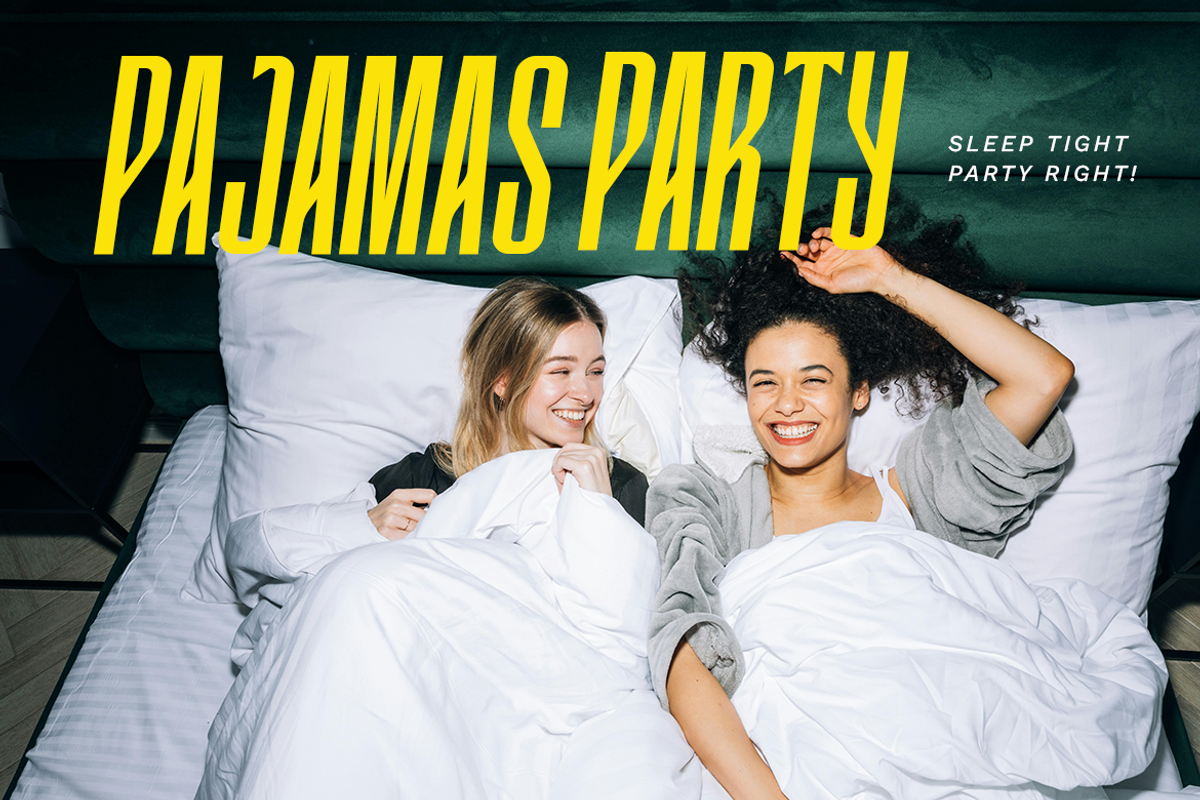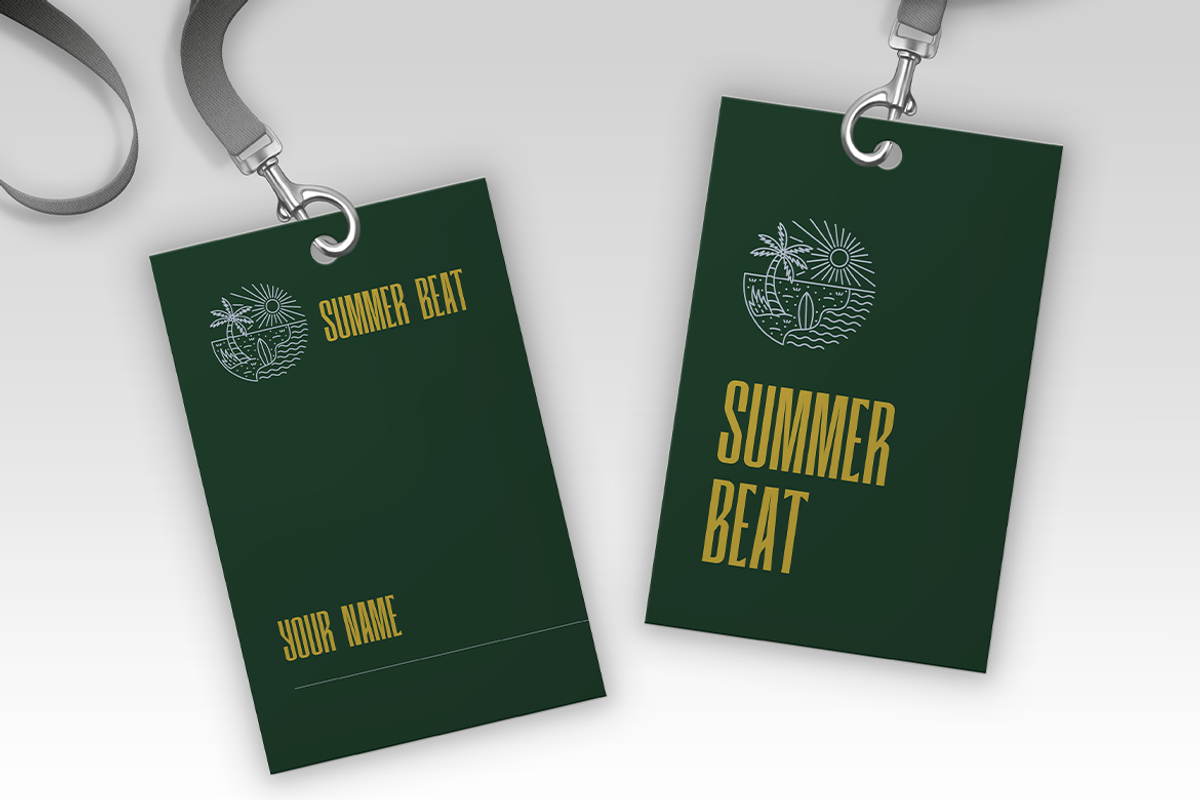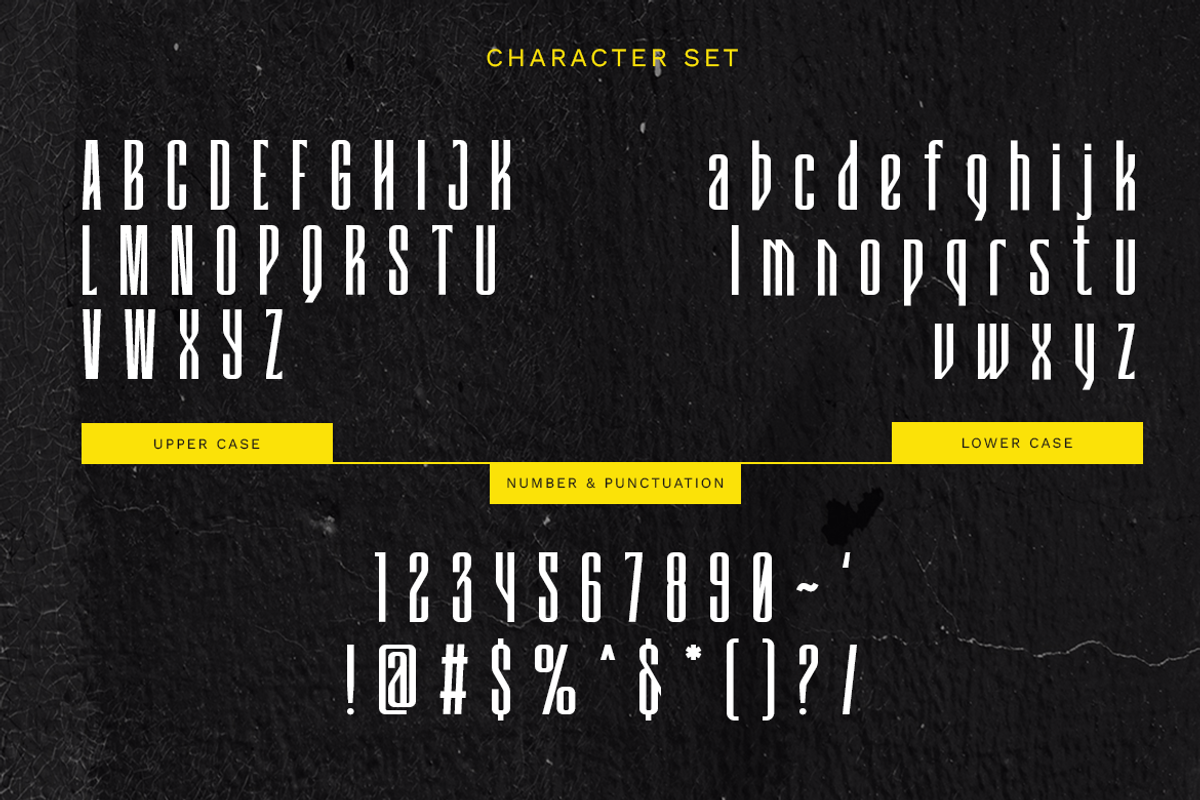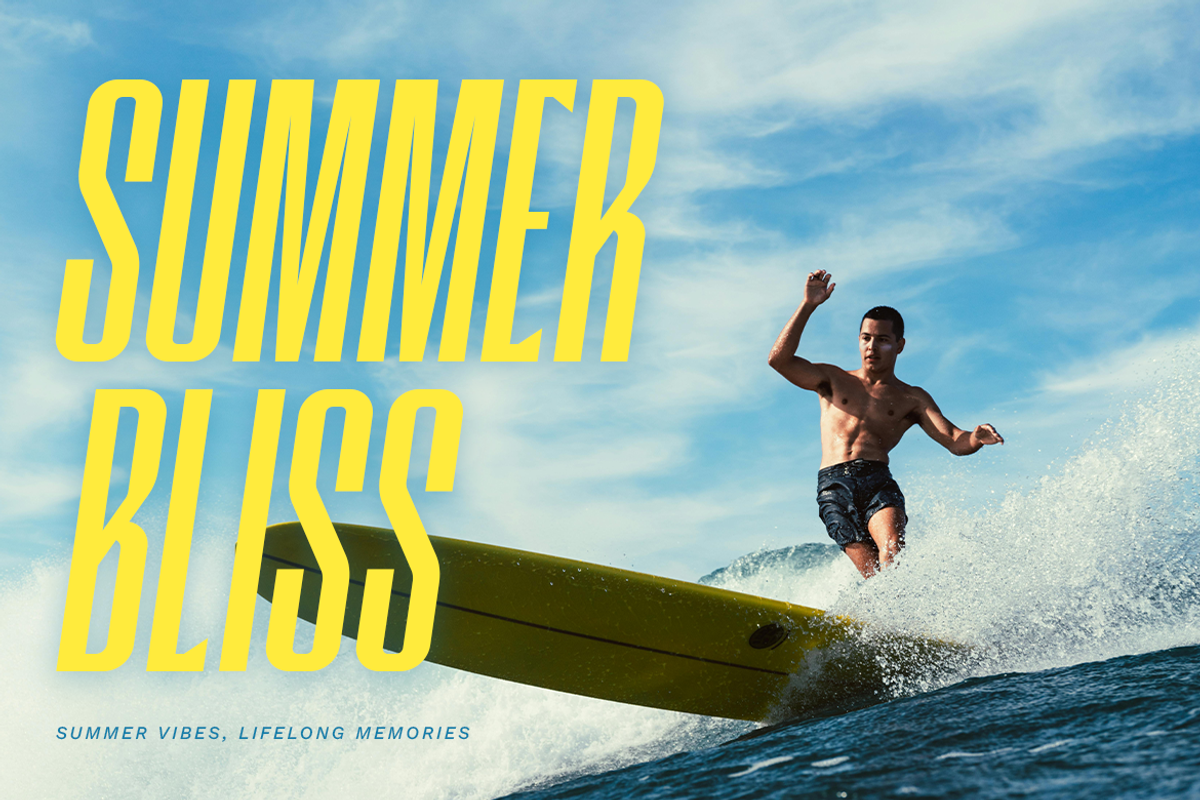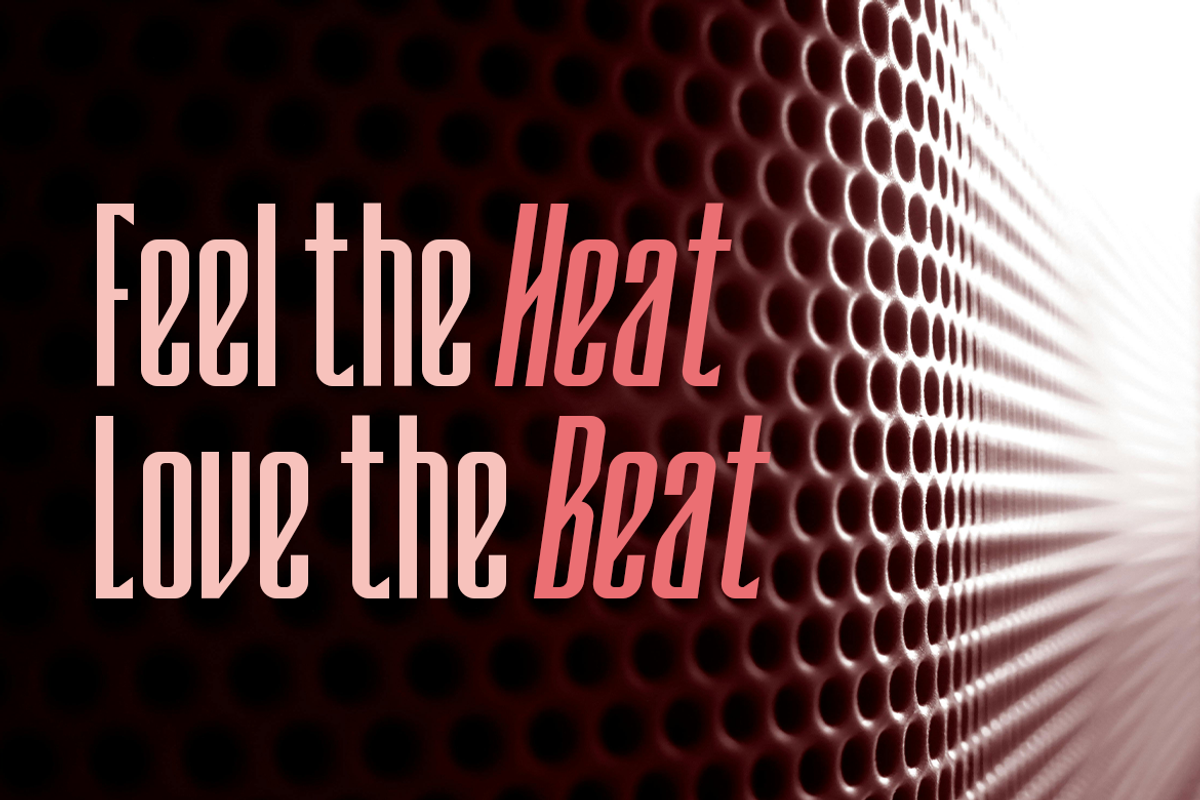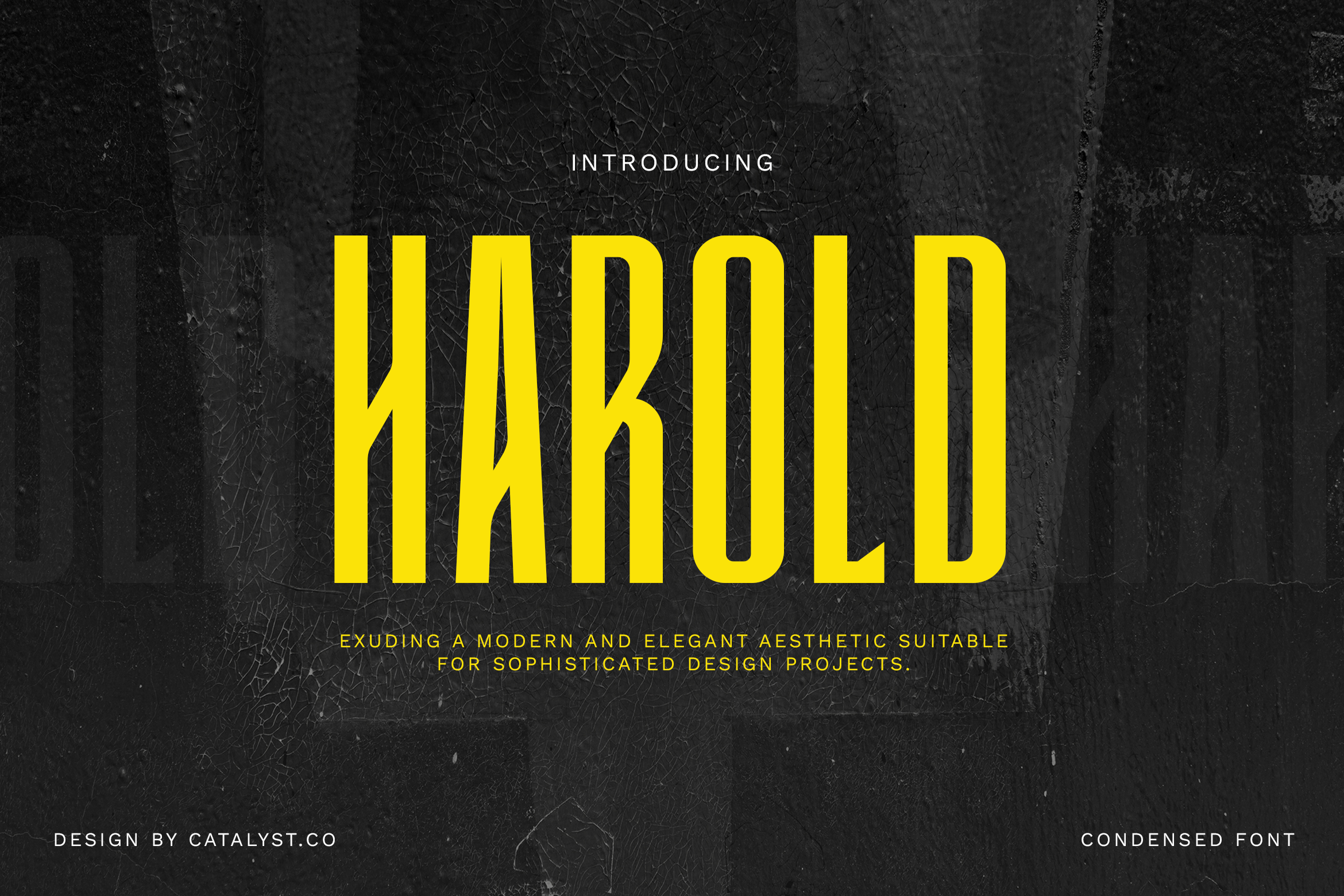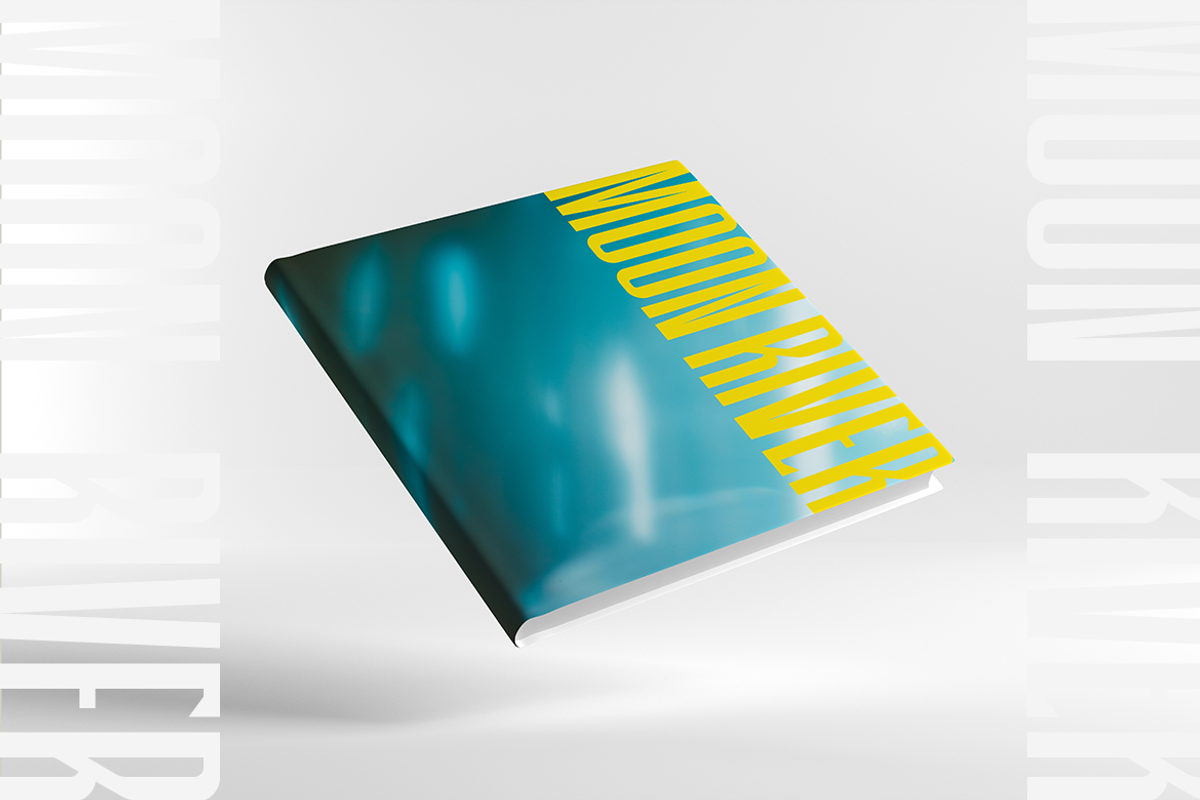
Harold Condensed Font
Harold Condensed Font typeface excellent used for the manufacture quote text, logotype, header magazine, and many more.
- Numeral & Punctuations